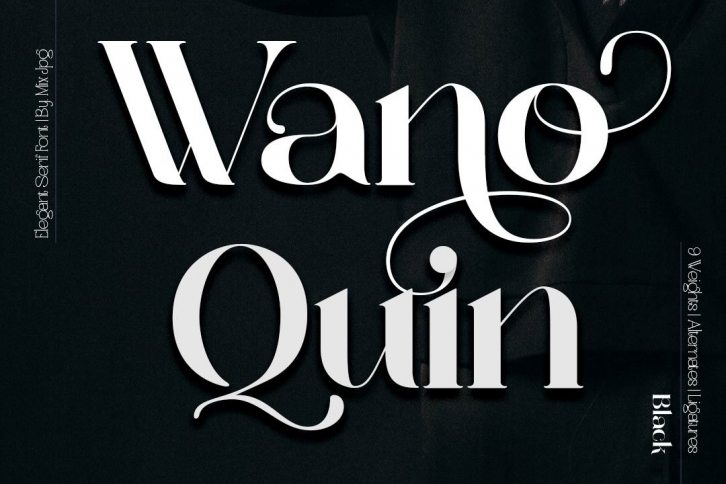
Wano Quin Black| Beautiful and Elegant Serif Font Download
Wano Quin Black is a trendy and unique font with an authentic style. It was designed by MixJpg type and it's a great choice for creative people who need such a font. It was released on November 11, 2020 and the file size is 9.32 MB. Wano Quin Black will add an organic vibe to any design idea!